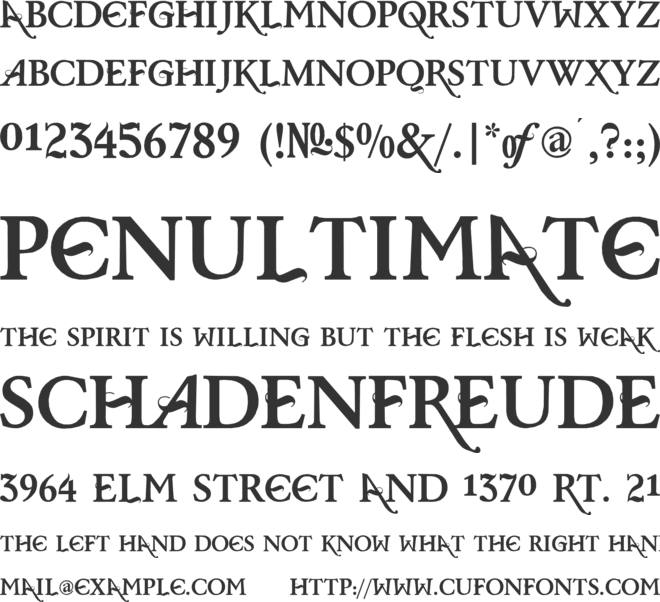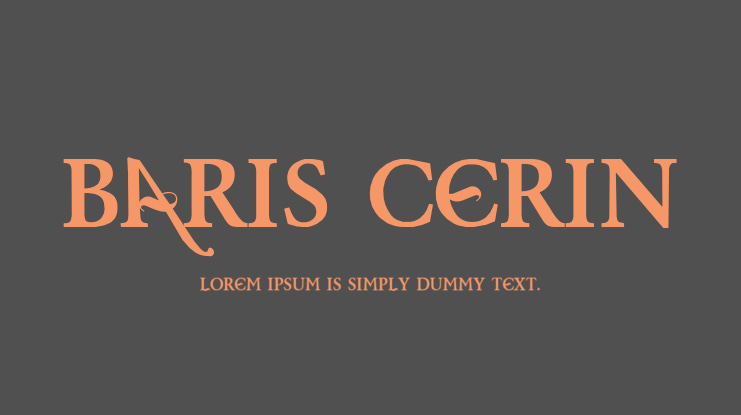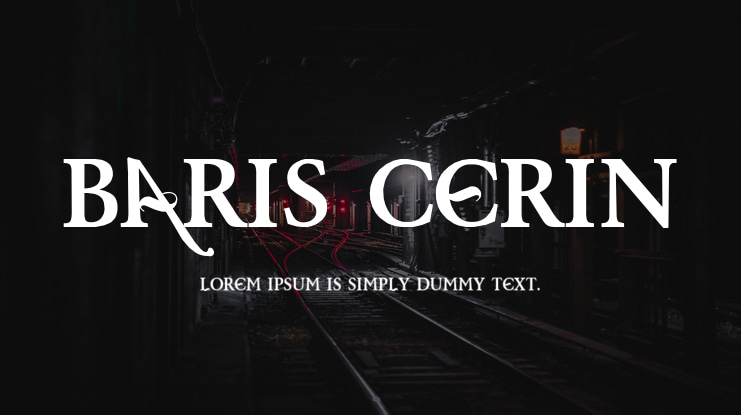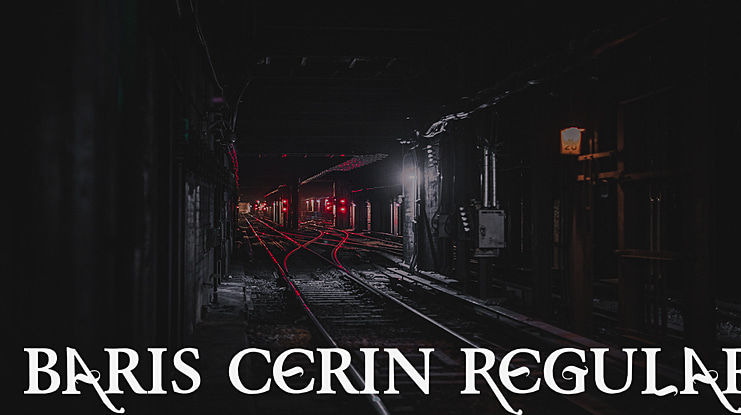
Baris Cerin Font
Named after our favorite professor! A bastardized version of Garamond. Prettyfide, with a full character set, Euro symbol, multi-language support and special characters!